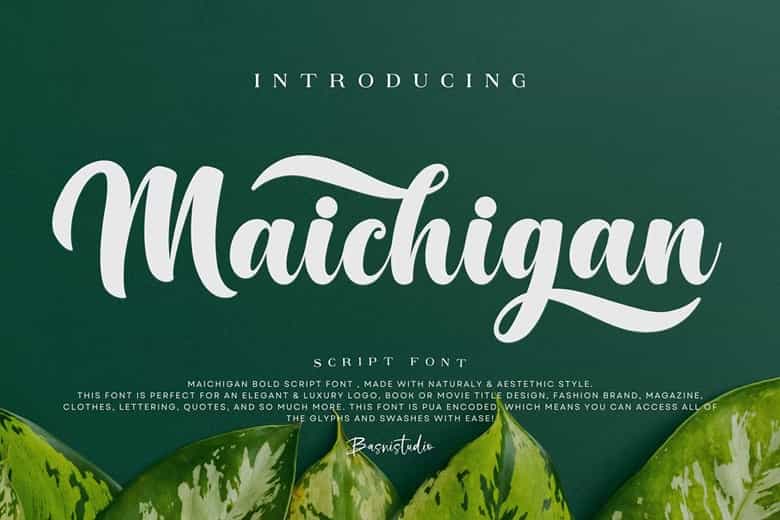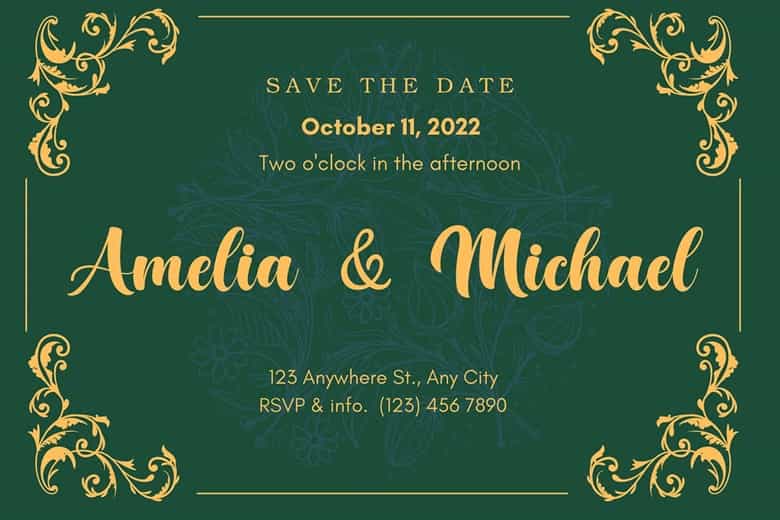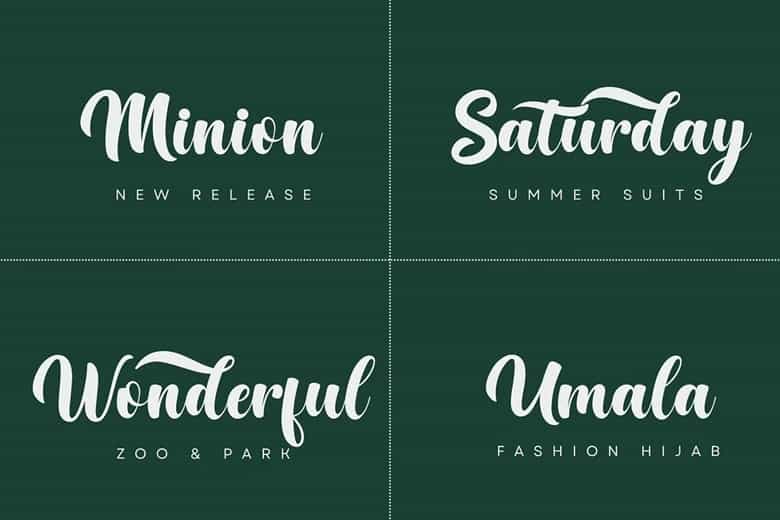
Discover Maichigan Font, part of the Calligraphy collection—a versatile and unique font perfect for adding a personal touch to your projects. Download it for free and enjoy crafting designs with style, from invitations to social media posts. This font is available exclusively for personal use, giving you the freedom to create without limits. Unlock your creativity with Maichigan Font today!
Maichigan bold calligraphy script font, which is made using naturally and aesthetics style. Excellent for luxury logos, movies/book titles, fashion brands, magazines, clothing lines, lettering, quotes and much more.